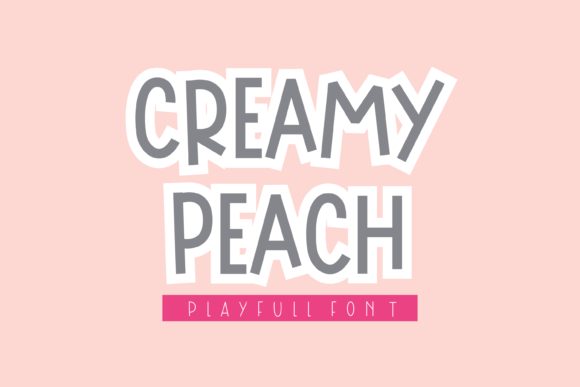
Unleash your creativity and let your imagination run wild with Creamy Peach Font, a display font crafted to infuse your designs with a touch of playfulness and charm. This captivating font is perfect for adding a personal touch to your crafting projects, digital designs, presentations, and greeting cards. Embrace the whimsical spirit of Creamy Peach and embark on a delightful journey of artistic expression.
With its playful and engaging style, Creamy Peach is the perfect choice for conveying messages that resonate with your audience. Its unique and distinctive letterforms will captivate their attention and leave a lasting impression. Whether you're creating eye-catching headlines, playful posters, or charming invitations, Creamy Peach will help you communicate your ideas with creativity and flair.
Dive into the world of Creamy Peach and discover a font that transcends the ordinary. Its versatile nature makes it suitable for a wide range of projects, from whimsical invitations to captivating social media graphics. Let your creativity shine through as you explore the endless possibilities that await you with this enchanting font.
Indulge your senses in the delectable charm of Creamy Peach, a font that will elevate your designs to new heights. Its enchanting curves and playful strokes will weave a spell of creativity, transforming your projects into masterpieces of art. Experience the joy of designing with a font that captures the essence of fun and imagination.